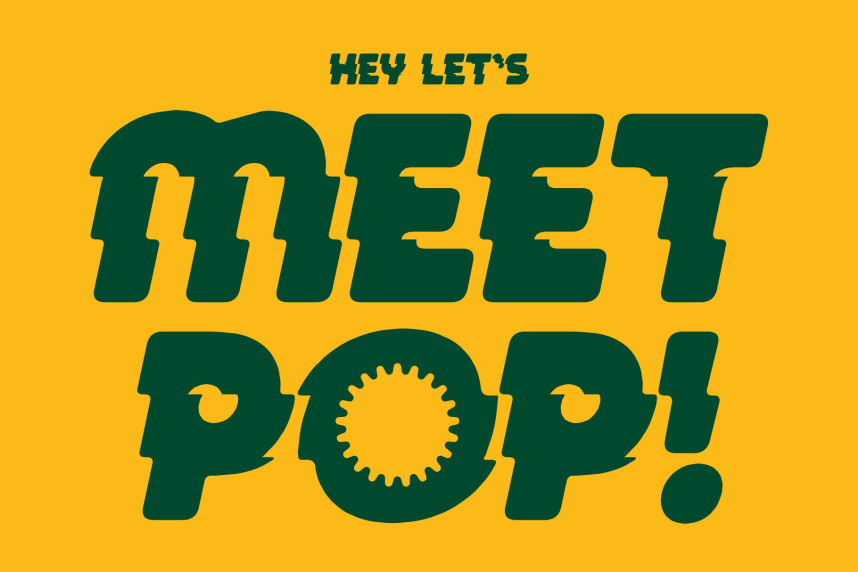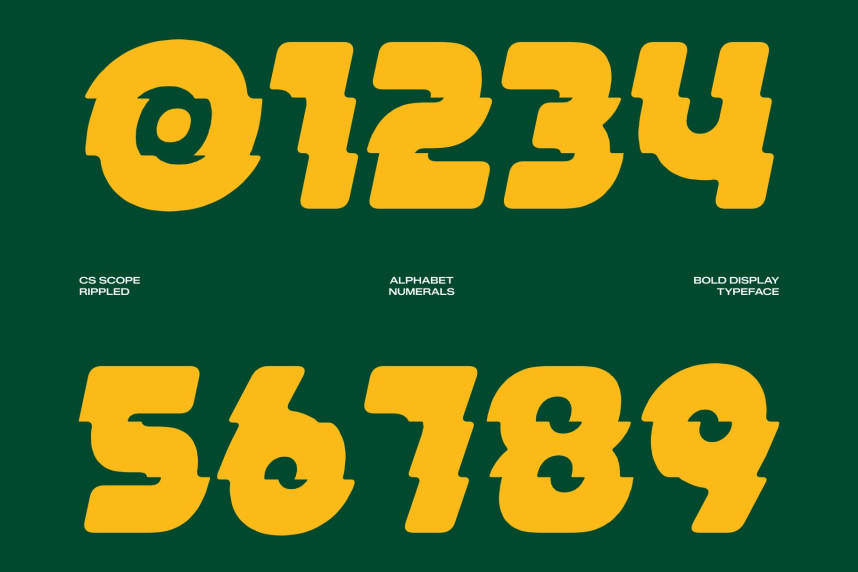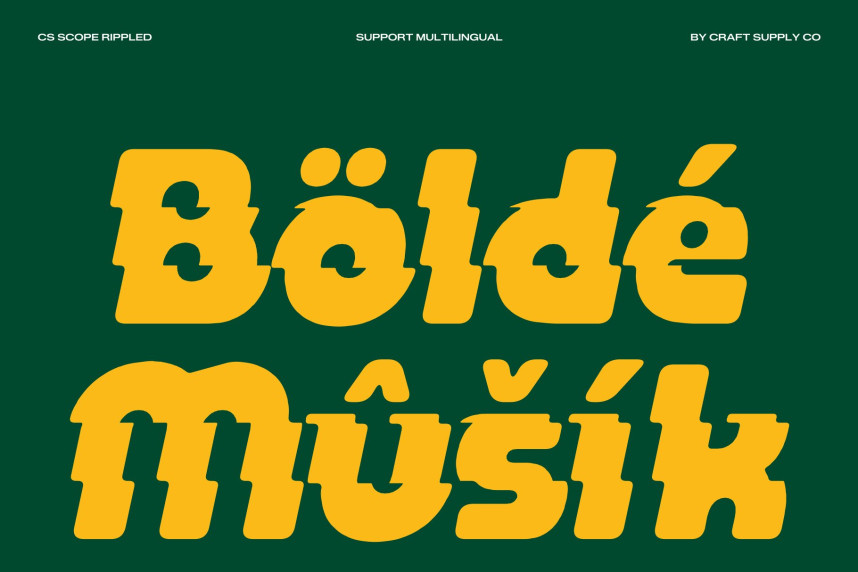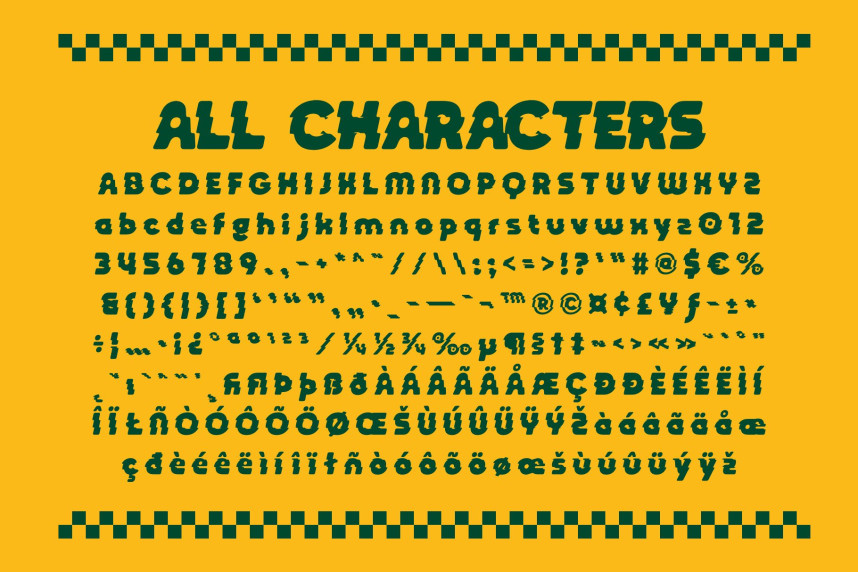
CS Scope Rippled Font
CS Scope Rippled Font – Bold Display Font with Fluid Geometric Energy
Bold and Attention-Grabbing Design
This is a bold display font crafted to instantly capture attention through its strong weight and confident visual presence. Every letterform is constructed with precision to ensure maximum impact at first glance, making it ideal for headline-driven compositions. Its bold structure enhances readability while delivering a commanding typographic voice that stands out in crowded visual environments. This font is designed to communicate messages with clarity, strength, and unmistakable visual authority.